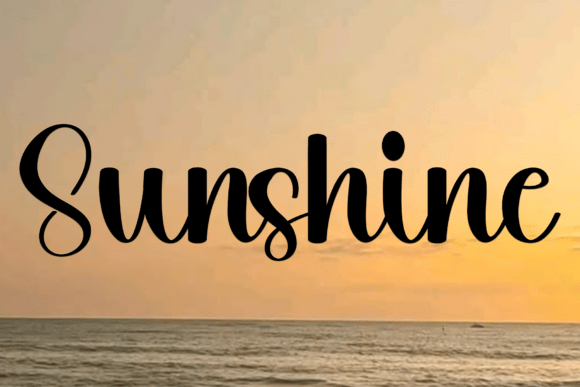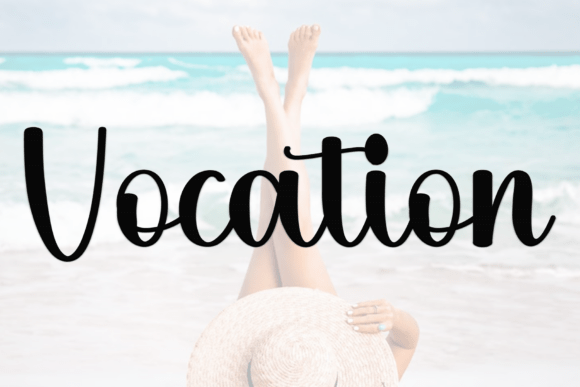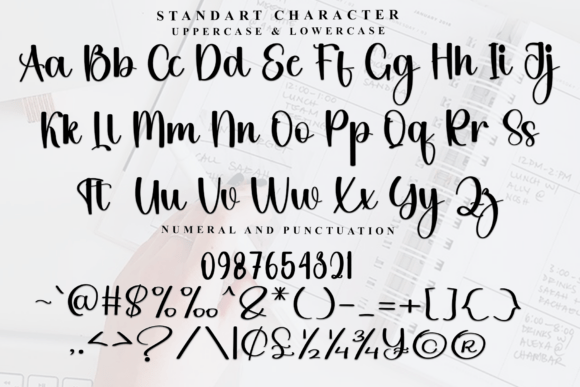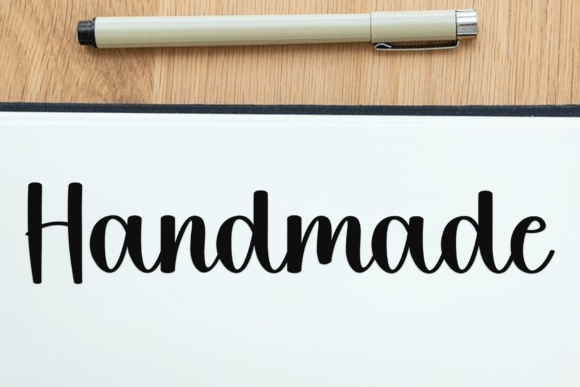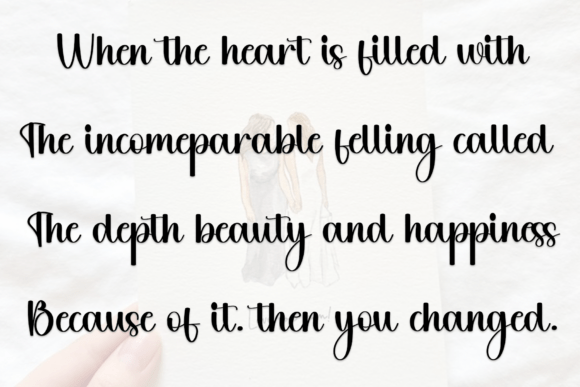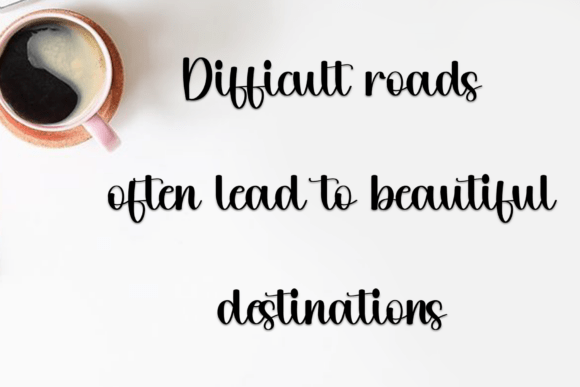
Discover the Charm of Destination Font: Elevate Your Designs with a Unique Touch
In the world of typography, fonts play a crucial role in conveying messages, expressing emotions, and creating a lasting impression. For designers, crafters, and creative enthusiasts, finding the perfect font can be a daunting task. However, if you’re looking for a font that combines elegance, uniqueness, and versatility, look no further than Destination Font. In this article, we’ll explore the features, benefits, and uses of this beautiful font, and how it can elevate your designs to the next level.
Introducing Wild: A Soft and Unique Font
Destination Font, also known as Wild, is a stunning font designed with a soft, unique touch. Its distinctive strokes give it a special character, making it meaningful and versatile for future use. The font’s natural and effortless style makes it perfect for a wide range of design projects, from crafts and creative works to digital and print materials.
Key Features of Destination Font
- Unique Character Set: Destination Font boasts a wide range of characters, making it ideal for designs that require a personal touch.
- Soft and Elegant Strokes: The font’s soft strokes give it a distinctive look, setting it apart from other fonts.
- Versatility: Use Destination Font for various design projects, including crafts, digital art, and print materials.
Destination Font offers numerous benefits for designers and crafters, including:
- Time-Saving: With its unique character set and versatility, Destination Font saves you time and effort in finding the perfect font for your project.
- Enhanced Creativity: The font’s distinctive style inspires creativity and helps you produce stunning designs that stand out.
- Professional Look: Destination Font gives your designs a professional touch, making them appealing to a wide range of audiences.
Use Cases for Destination Font
The possibilities are endless with Destination Font. Here are some use cases to get you started:
- Digital Art: Use Destination Font to add a personal touch to your digital art, illustrations, and graphics.
- Crafts: Perfect for crafters, the font is ideal for creating handmade cards, scrapbooking, and other paper crafts.
- Print Materials: Use Destination Font for brochures, flyers, posters, and other print materials that require a unique touch.
- Branding: Destination Font is perfect for creating logos, business cards, and other branding materials that require a distinctive style.
In conclusion, Destination Font is a beautiful and eye-catching font that offers a unique touch to your designs. With its soft, elegant strokes and versatile character set, it’s perfect for designers, crafters, and creative enthusiasts. Compatible with various applications, Destination Font is ideal for a wide range of products and design projects. Elevate your designs with Destination Font and discover a world of creative possibilities.